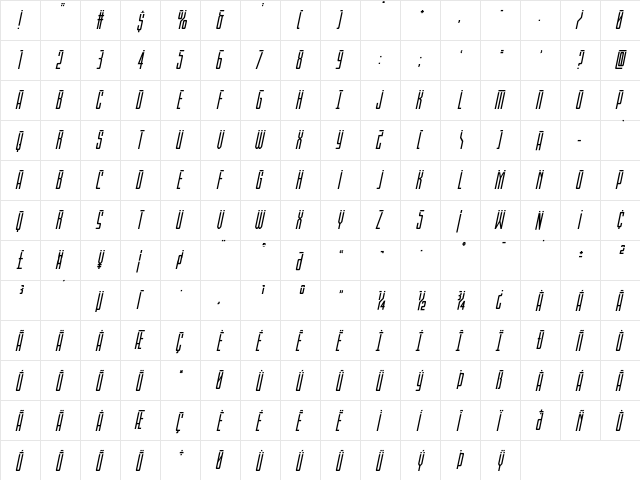
Blue Cobra Laser Italic Regular
Design Context for Blue Cobra Laser Italic Typeface
Blue Cobra Laser Italic offers clean, dependable letterforms without strong stylistic allegiance, making it a practical choice for designers who need flexibility. The dynamic lean of this cut emphasises speed and emphasis in any layout.
Pro Tip: Try Blue Cobra Laser Italic for annotation and caption copy alongside an upright companion — the contrast in angle creates a dynamic but ordered typographic system.